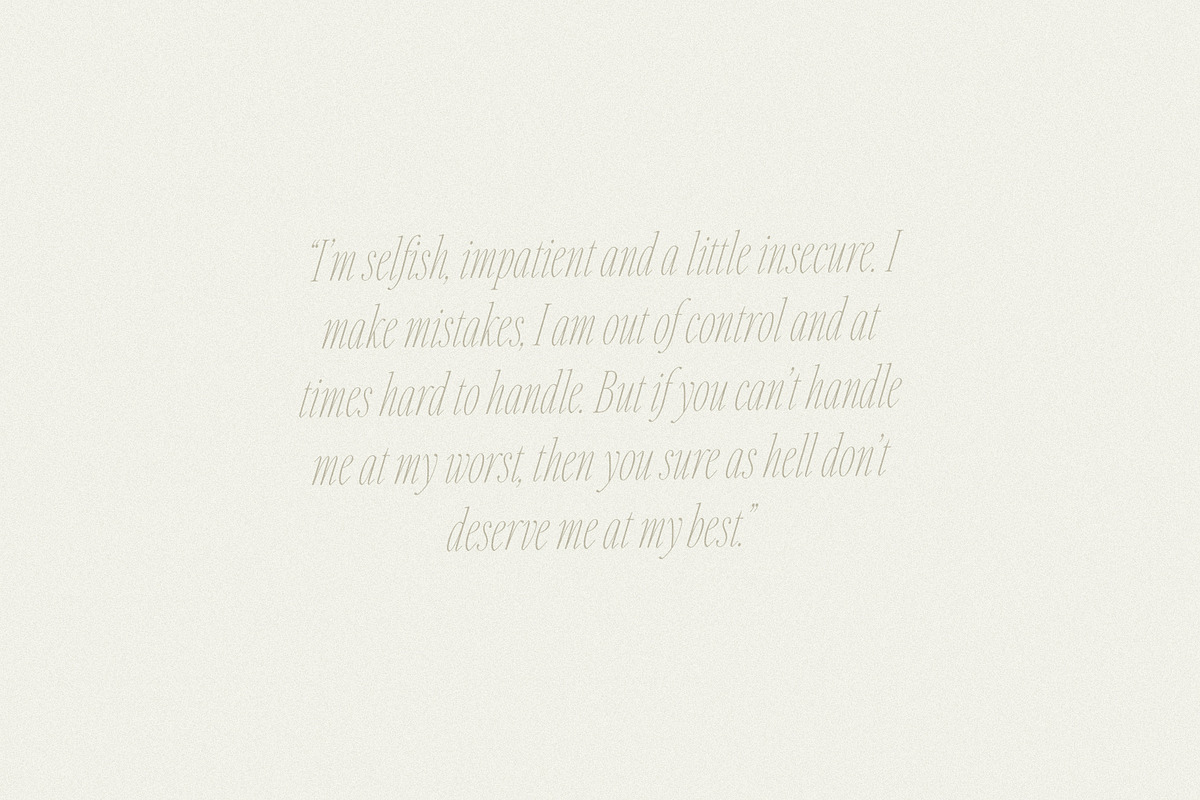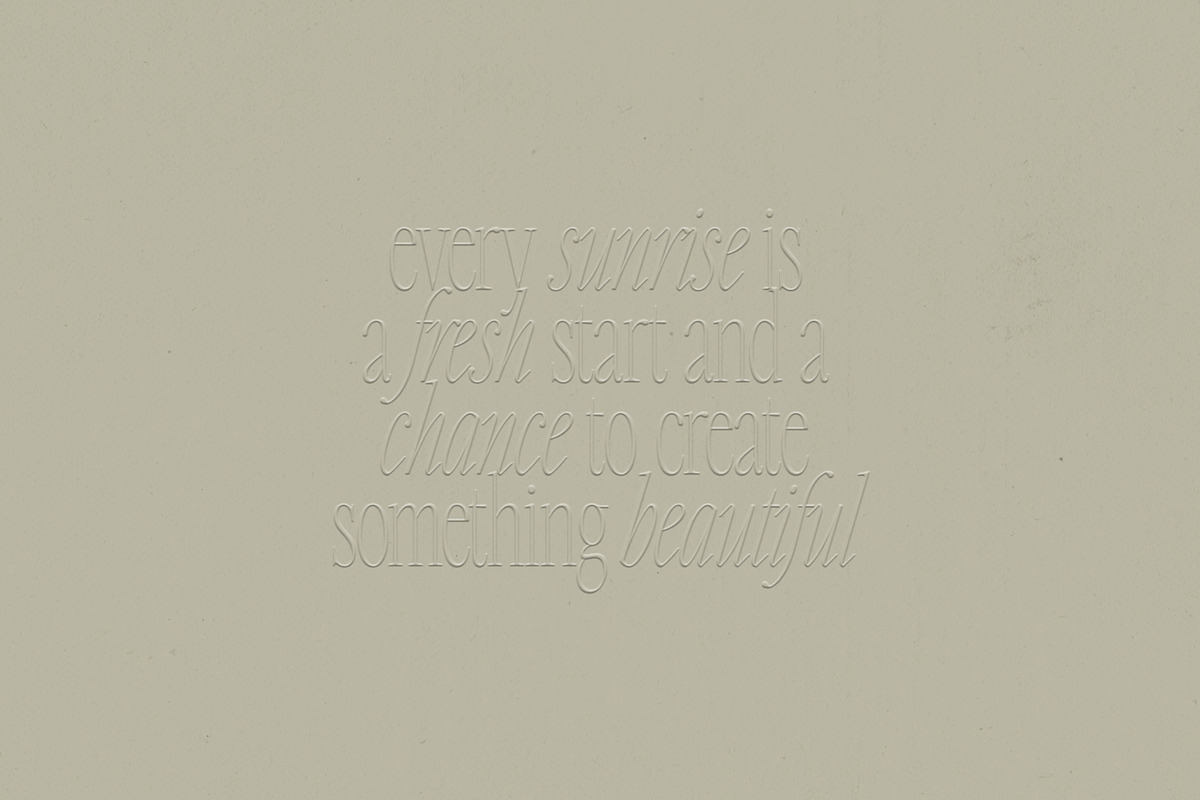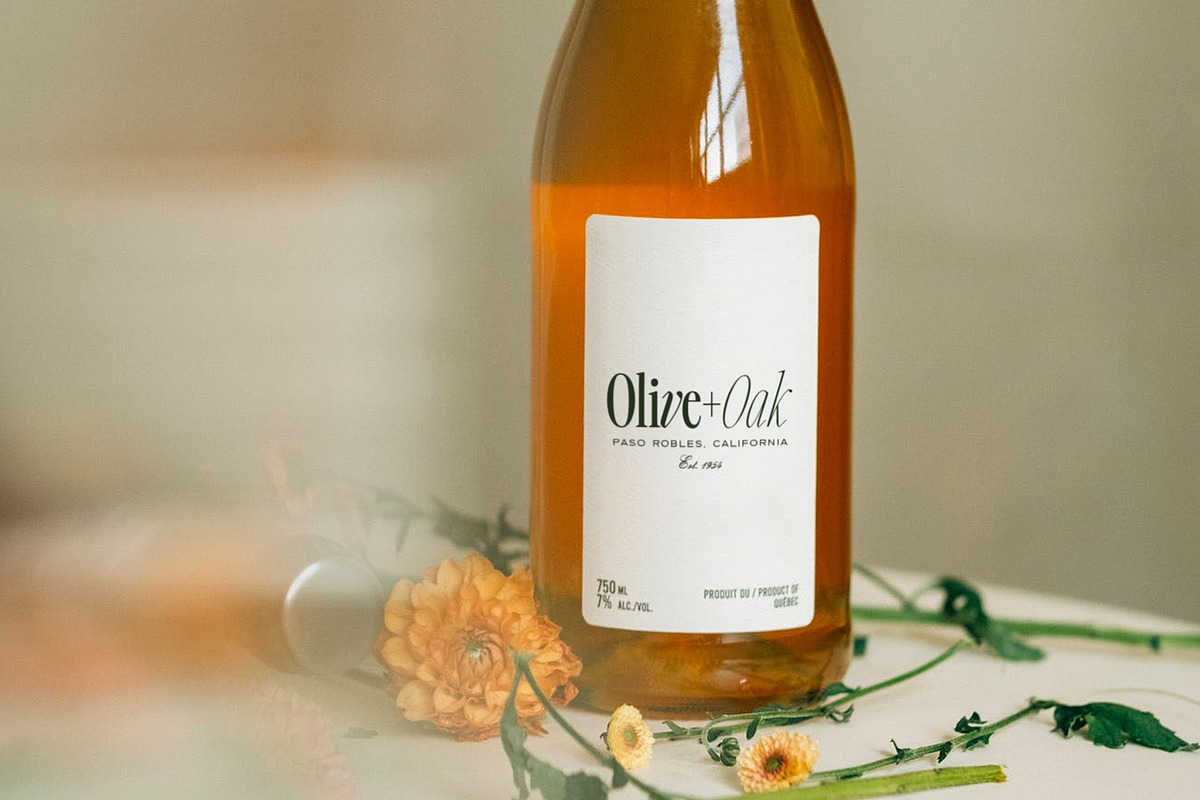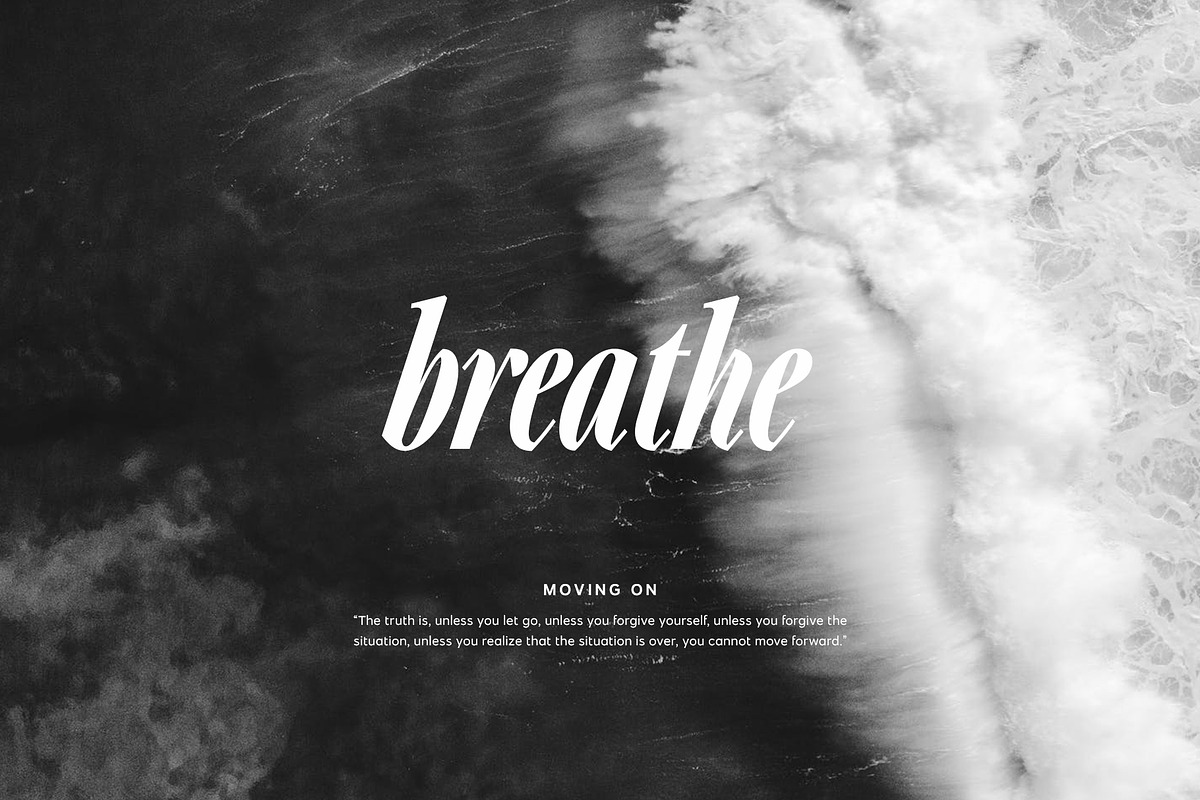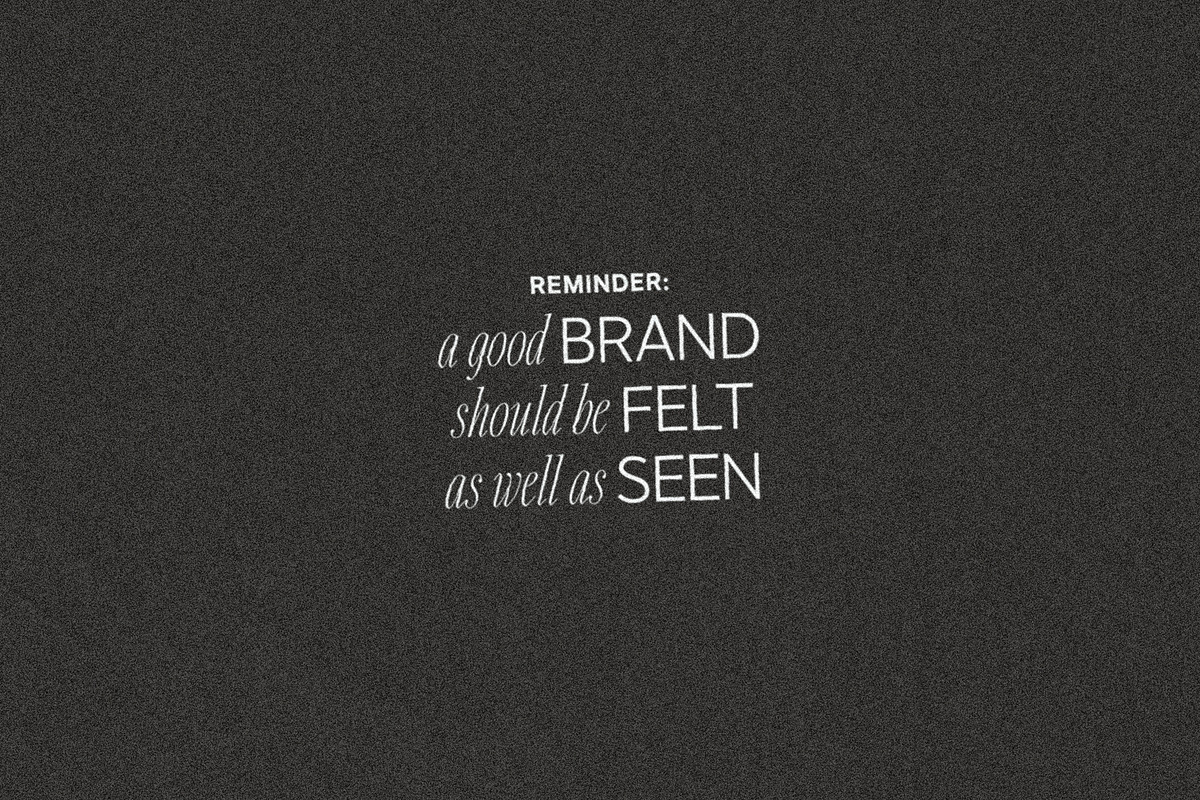
Carefree is a gorgeous condensed serif typeface that includes 16 fonts, regular and italic, from Hairline weight to Bold. It makes it so simple to elevate a logo or headline text, whether you’re wanting something bold or delicate.